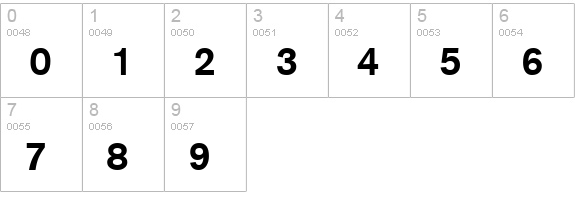
A750-Sans-Medium-Regular Font Details
A750-Sans-Medium-Regular is a balanced, medium-weight variant in the A750 typeface family \xE2\x80\x94 well suited to sub-headlines, navigation, and balanced editorial work.
A750-Sans-Medium-Regular is a modern and stylish font that exudes elegance and professionalism. With its clean lines and balanced proportions, this font is perfect for a wide range of design projects, from branding to editorial layouts. The versatility of A750-Sans-Medium-Regular makes it a go-to choice for designers looking to make a statement with their typography. And the best part? A750-Sans-Medium-Regular is available for free download at FontsMarket.com. This means you can access this high-quality font without breaking the bank, making it a valuable addition to your font library. Whether you're a graphic designer, web developer, or just someone who appreciates good design, A750-Sans-Medium-Regular is sure to elevate your projects and leave a lasting impression. Download it today and unleash your creativity with this versatile and eye-catching font.